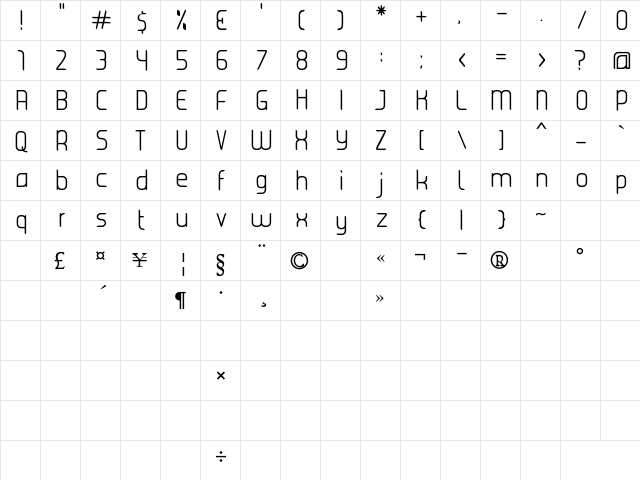
JUICE Light Regular
| Designer | Dhany Arliyanti |
Design Context for JUICE Light Typeface
JUICE Light is a composed and adaptable typeface that performs quietly and consistently across a wide range of design contexts. Its slender proportions lend an understated elegance to any composition.